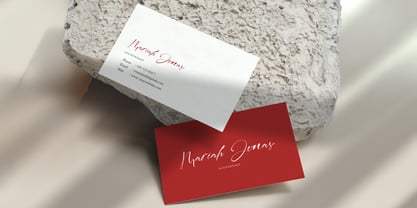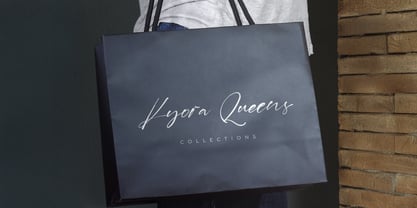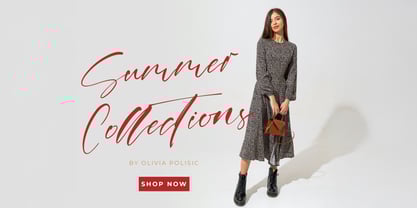
Laneky Haizen
The Laneky Haizen Font Family was designed by Virgiawan Listanto and published by Stringlabs Creative Studio. Laneky Haizen contains 1 styles. More about this family
Laneky Haizen is a stylish signature script font that captures the essence of elegance and individuality. With its smooth flow, fine strokes, and natural handwritten feel, this font is perfect for adding a personal and luxurious touch to your designs.